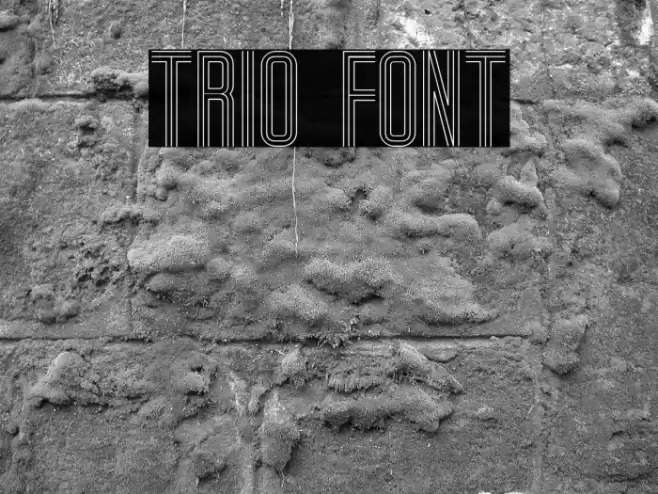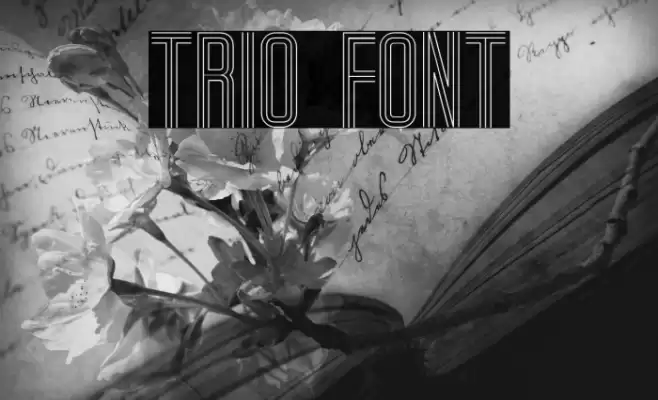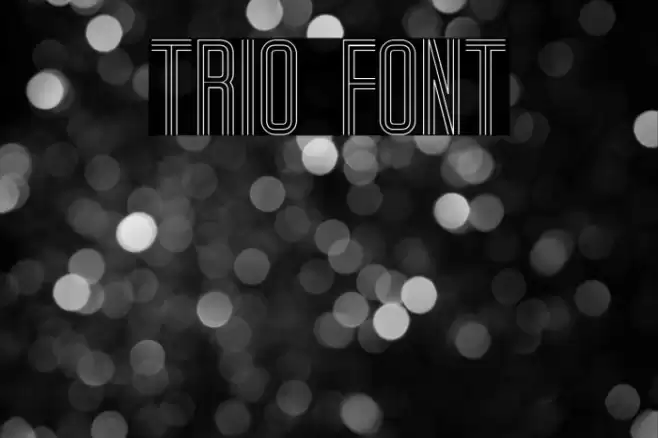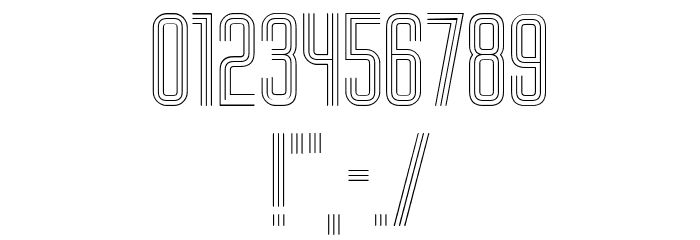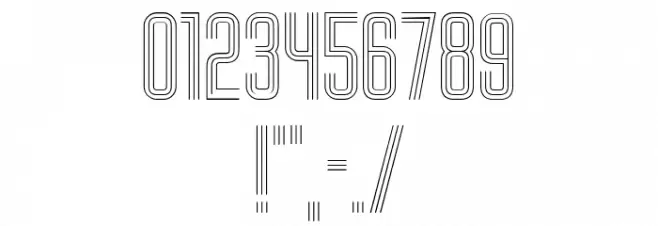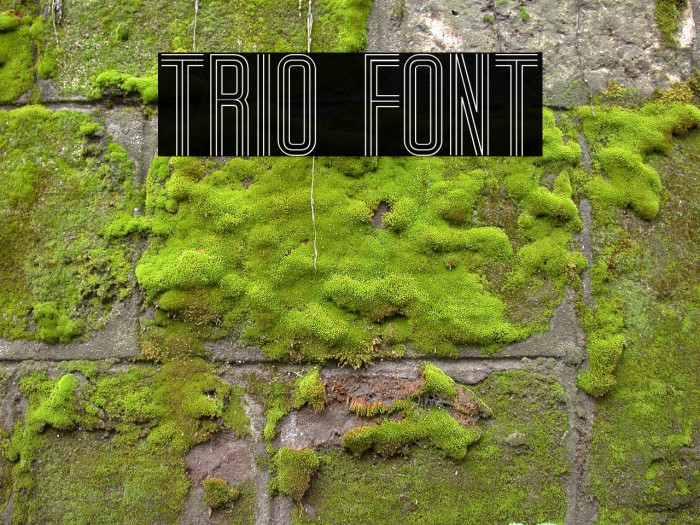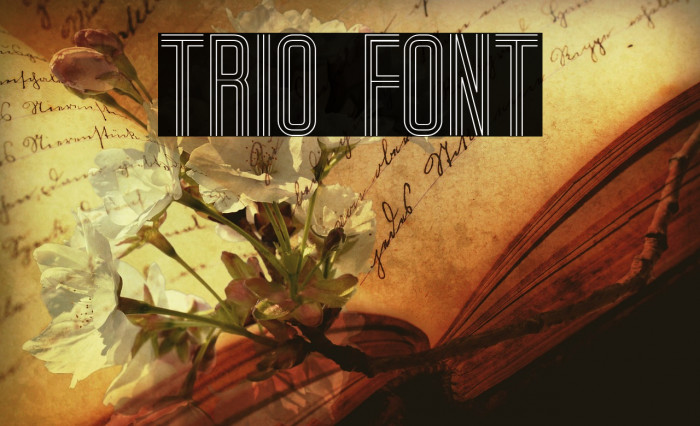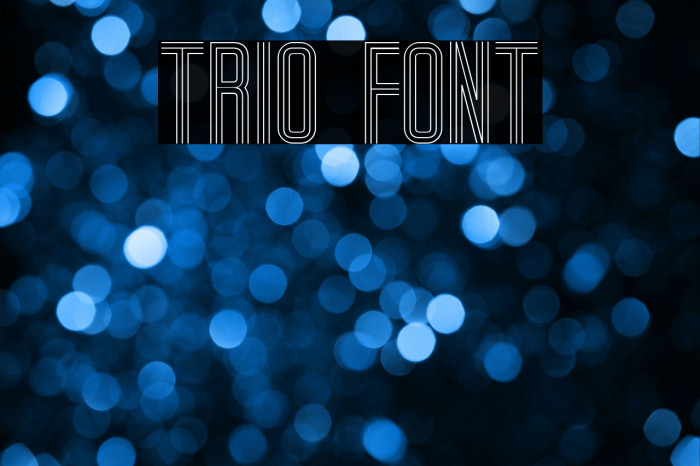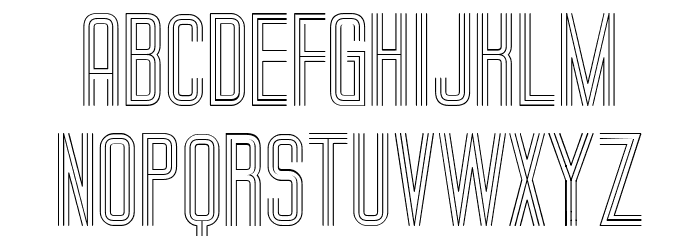
Trio Font
Trio Description
This font features a unique and modern design with a distinct triple-line structure for each character, creating a sense of depth and dimension. The uppercase letters are bold and geometric, with clean lines and sharp angles that give them a futuristic appearance. The lowercase letters maintain the same triple-line style, ensuring consistency throughout the typeface. Numbers and special characters are also designed with the same attention to detail, making them easily recognizable and visually appealing. The overall aesthetic is sleek and contemporary, suitable for projects that require a standout, eye-catching font.
A modern, triple-line font with a geometric and futuristic design from Uncategorized fonts.
- Proposed Projects: Ideal for branding, posters, album covers, and any project needing a bold, modern look.